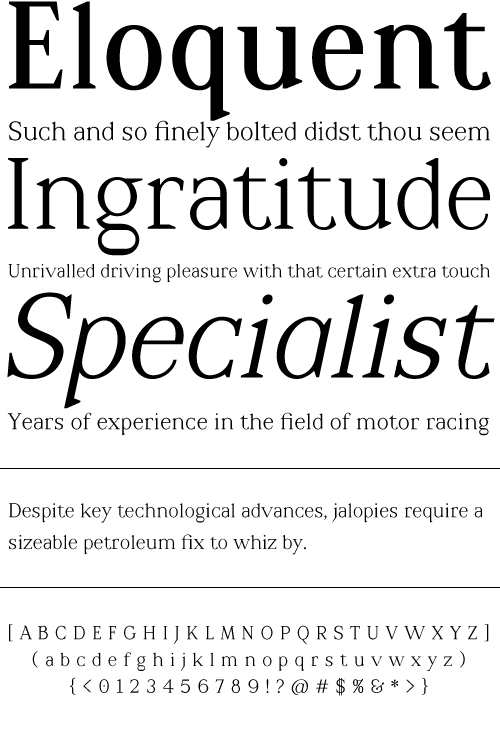
Desmond Text
DesmondText is a highly readable and quirky serif face with a tall x-height and glyphic serifs. It is easy to read small, but with pleasing details that shine at display sizes.
Year Designed:
1998
Weights:
Regular, Italic, Bold, Bold Italic